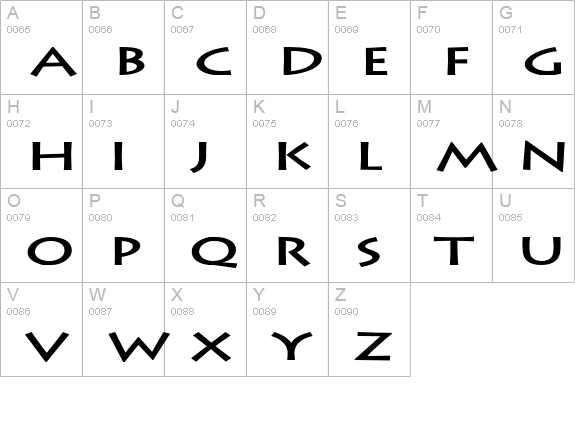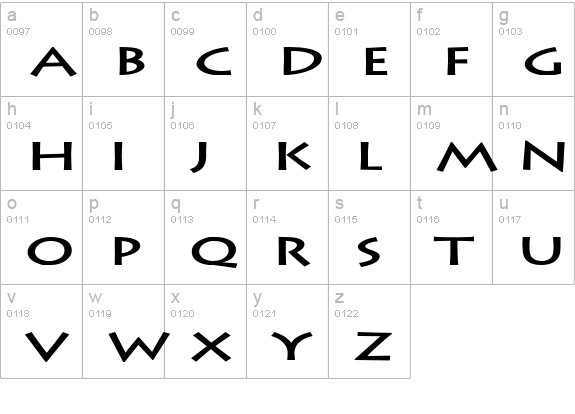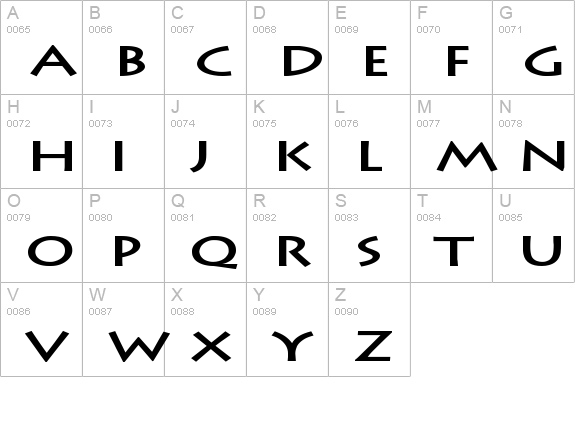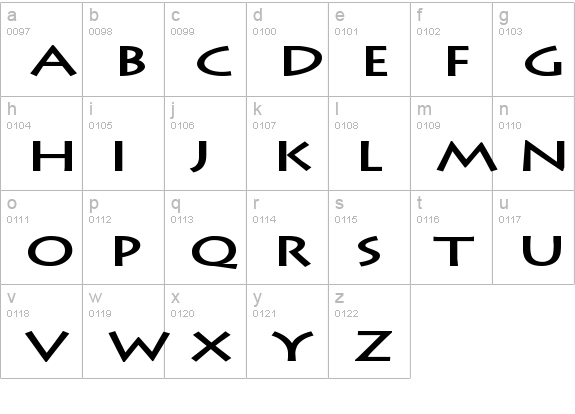
Liste Extended Bold Font Details
Liste Extended Bold is a strong, high-contrast, extended-width variant in the Liste typeface family \xE2\x80\x94 well suited to headlines, attention-grabbing titles, and strong calls-to-action.
Liste Extended Bold is a modern and stylish typeface that exudes confidence and sophistication. With its bold weight and extended letterforms, this font is perfect for making a strong statement in your designs. Whether you're creating headlines, titles, or anything that needs to stand out, Liste Extended Bold is sure to make an impact. The clean lines and sharp edges of Liste Extended Bold give it a contemporary look that is both versatile and eye-catching. Its bold weight ensures that your text will command attention and be easily readable across various mediums. Best of all, Liste Extended Bold is available for free download at FontsMarket.com. You can easily access this striking font and incorporate it into your projects without any cost. Don't miss out on this opportunity to add a touch of bold elegance to your designs with Liste Extended Bold.